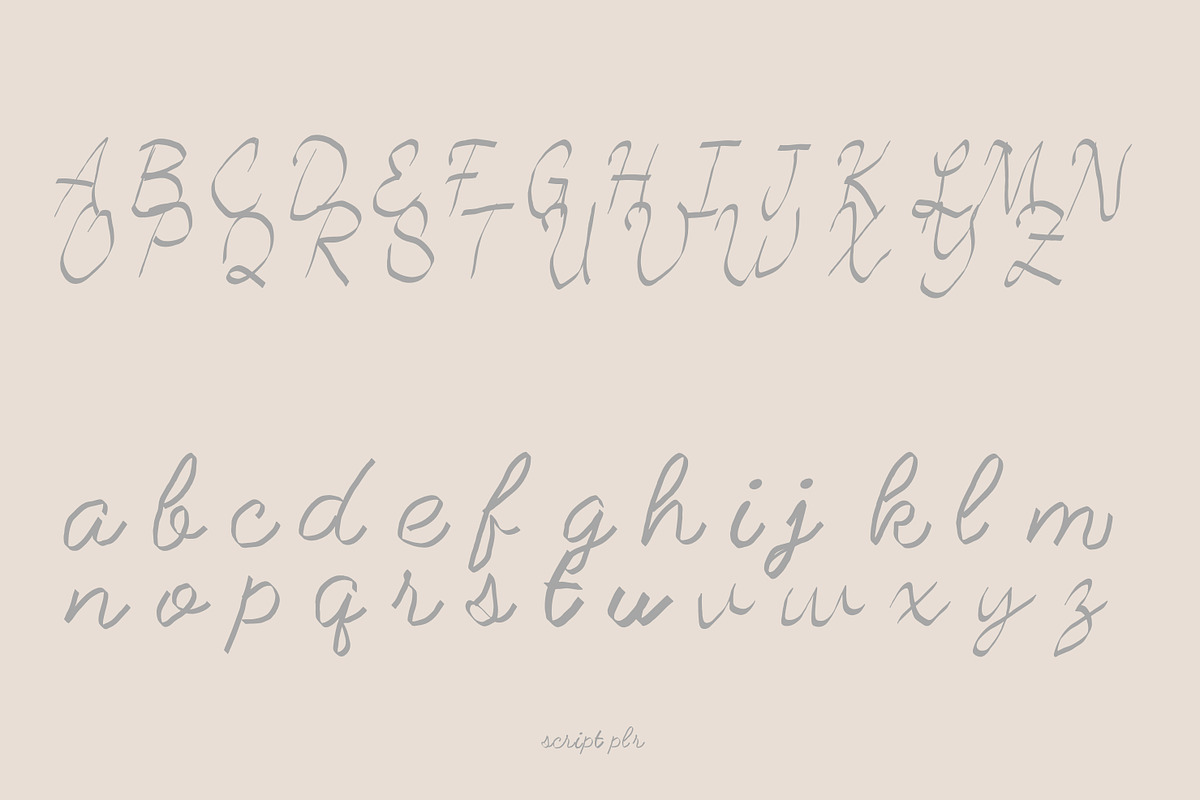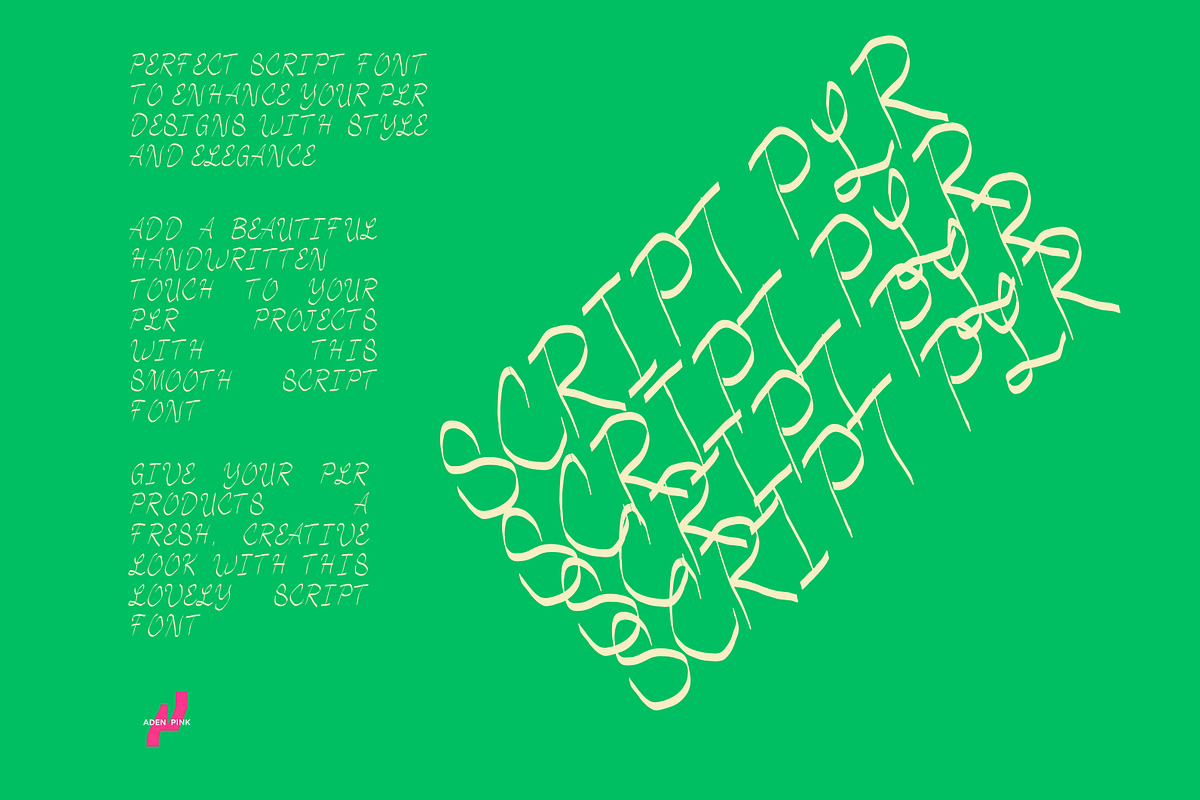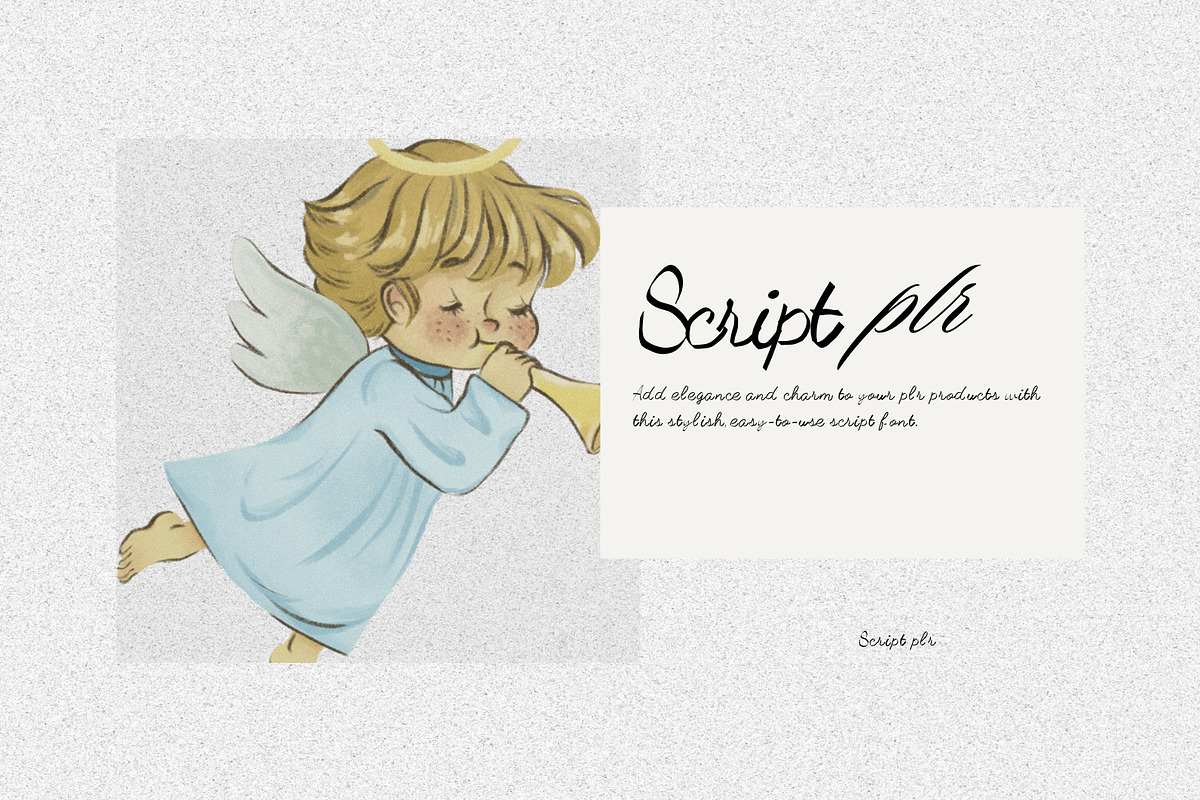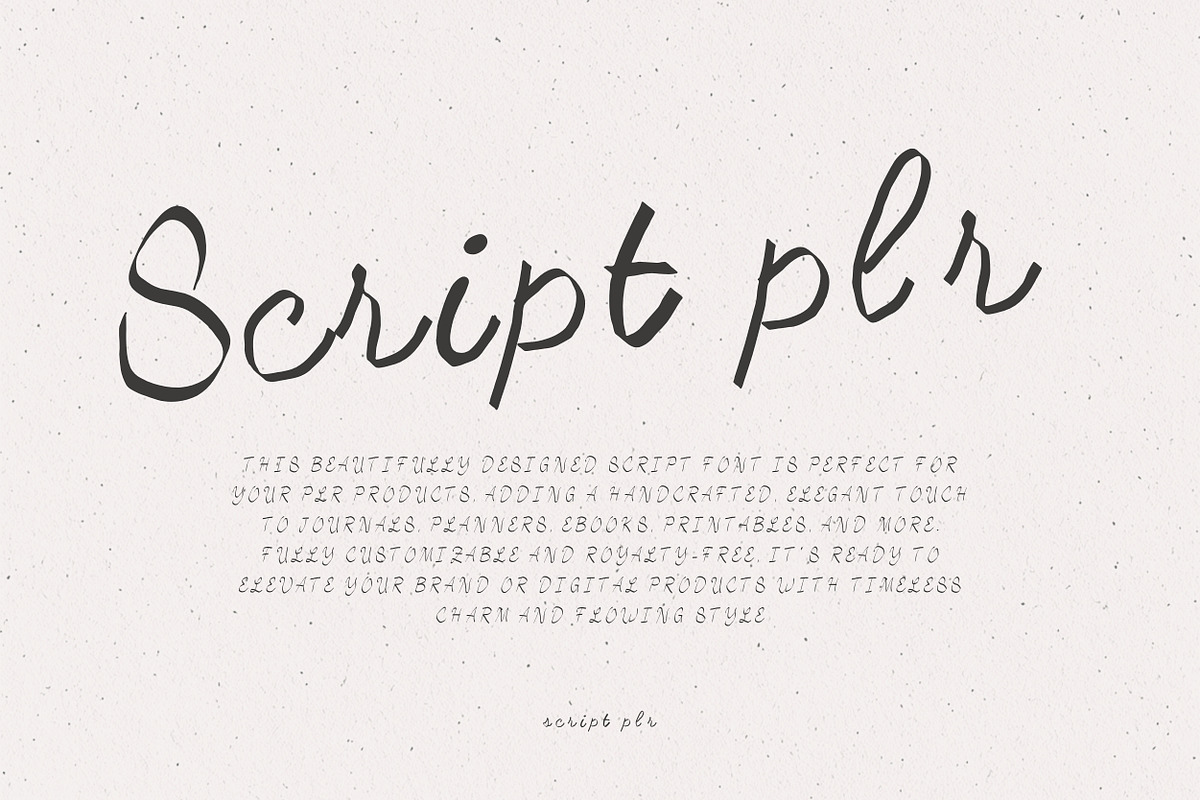
Script plr – Elegant Handcrafted
Unlock your creative potential with Script plr, a beautifully crafted typeface designed to add a touch of elegance and personality to your projects. Perfect for logos, branding, invitations, packaging, and social media graphics, Script plr offers a smooth, flowing style that effortlessly enhances any design. Whether you're working on personal or commercial projects, this versatile font will elevate your work to the next level. Compatible with most design software, Script plr brings sophistication and charm to every word you write. Download now and transform your creative vision!